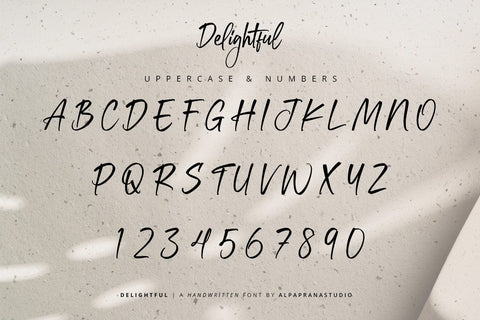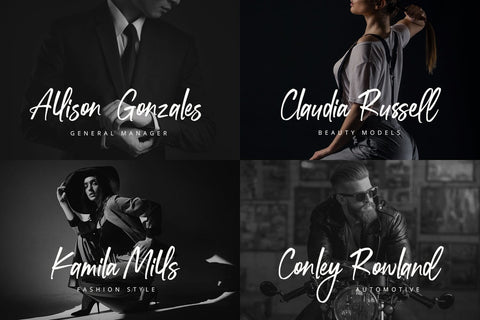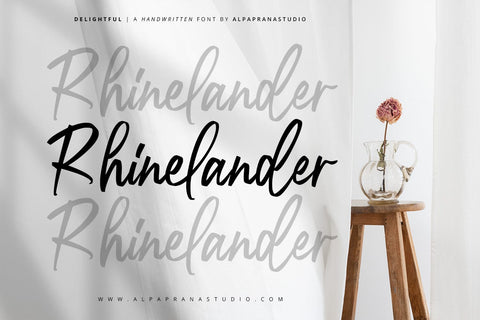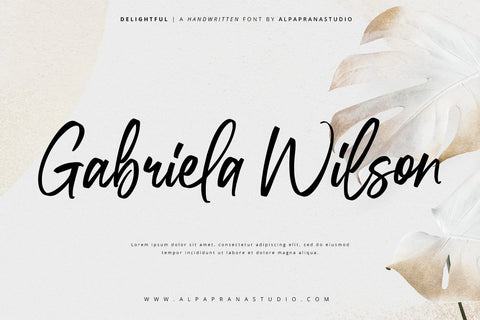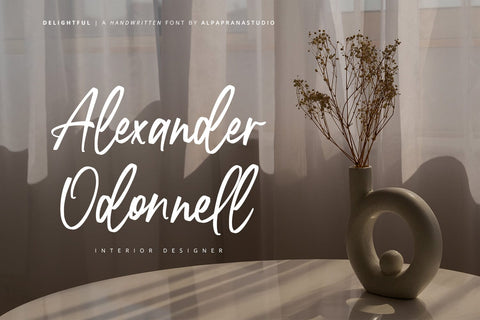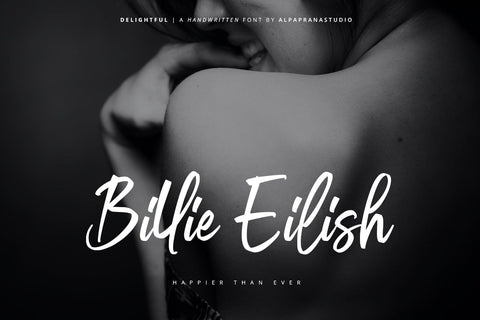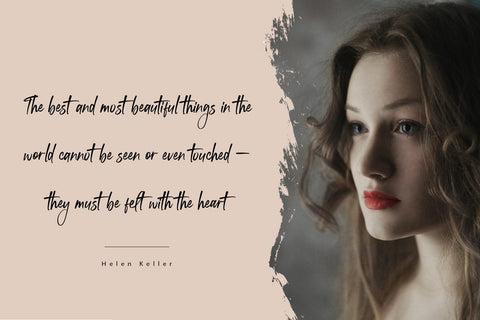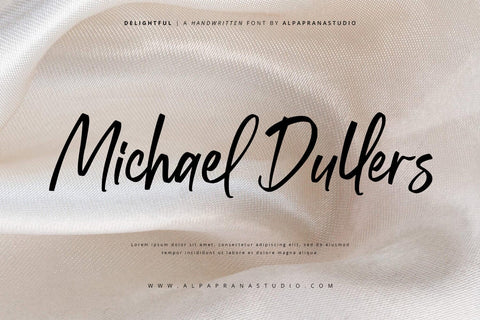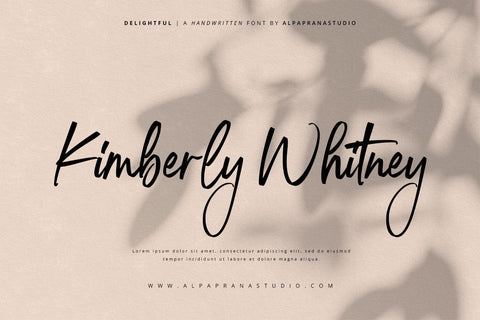
Delightful - Handwritten Font
Delightful is a handwritten font with natural and modern feels. It will be perfectly used for Branding, Logo Design, Lettering, Logotype, Clothing, Poster, magazine, packaging, posters, shopping bags, t-shirts, book covers, photography, special events and other design project.